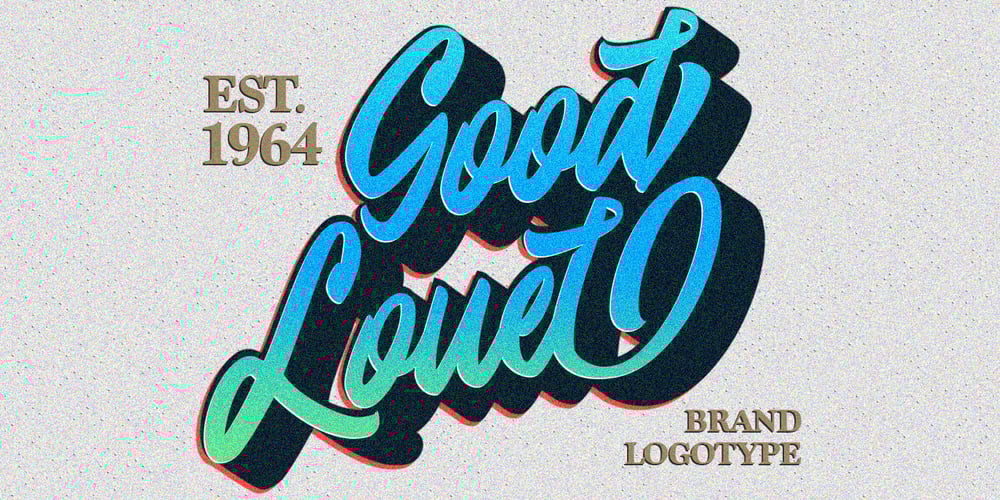
Modster Script Font Family was designed by Haris Purnama Putra and published by Moovied Co.. Modster Script contains 2 styles and family package options. Modster Script is a collective inspired by urban style created from the style of hand-lettering with love. Modster comes with a set of styles, alternatives, present and extra shadow. This font is ideal for branding, logos, handwritten quotes, product packaging, headers, posters, merchandise, social media books / cover titles, special events, etc. To enable the OpenType Stylistic alternates, you need a program that supports OpenType features such as Adobe Illustrator CS, Adobe Indesign & CorelDraw X6-X7. There are additional ways to access alternates, using Character Map (Windows), Nexus Font (Windows), Font Book (Mac) or a software program such as PopChar (for Windows and Mac).